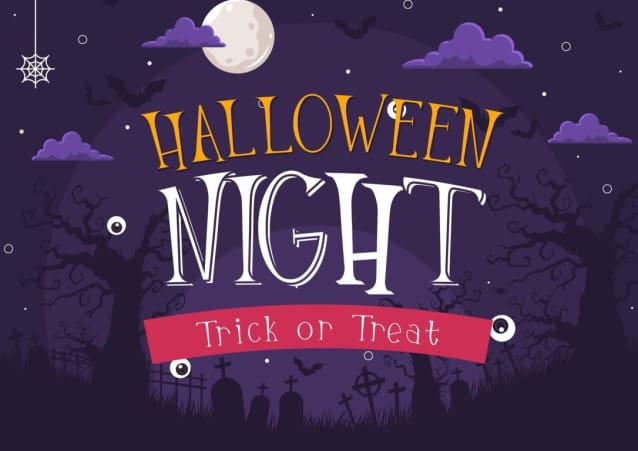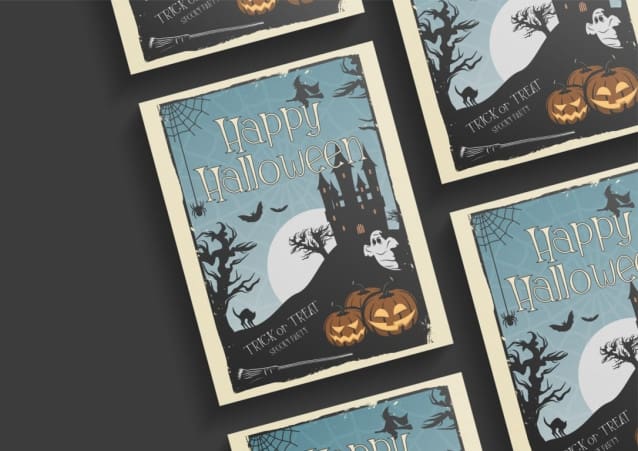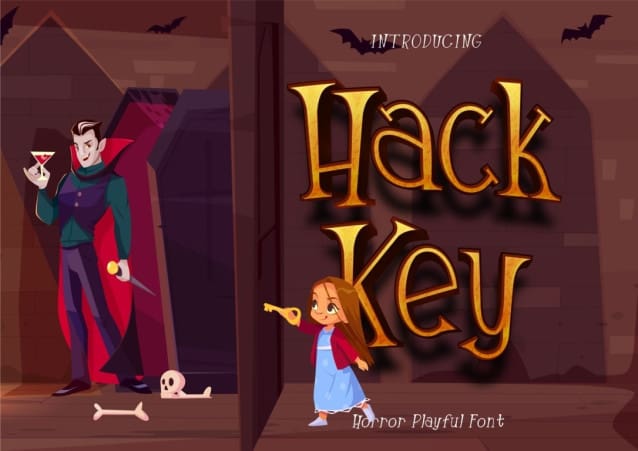
Hack Key Font
Hack Key Font, a spine-chilling font that carries a hint of horror! This typeface is a perfect fit for Halloween, emitting a playful yet eerie ambiance. This combination evokes a sense of vintage charm while incorporating a modern angular distress, delivering a unique and contemporary twist. Apart from Halloween, this font is an outstanding choice for anything related to witches, wizards, and the captivating world of magic and mystery.